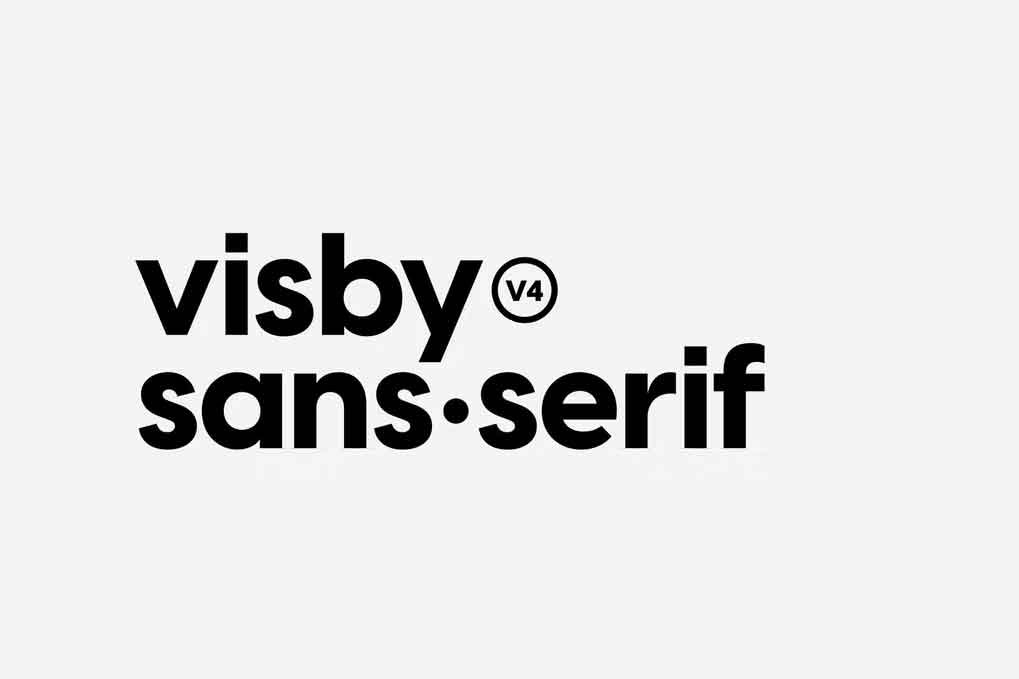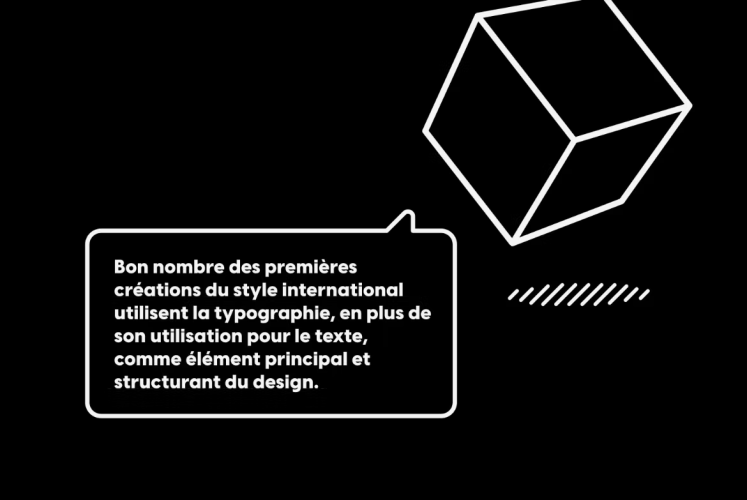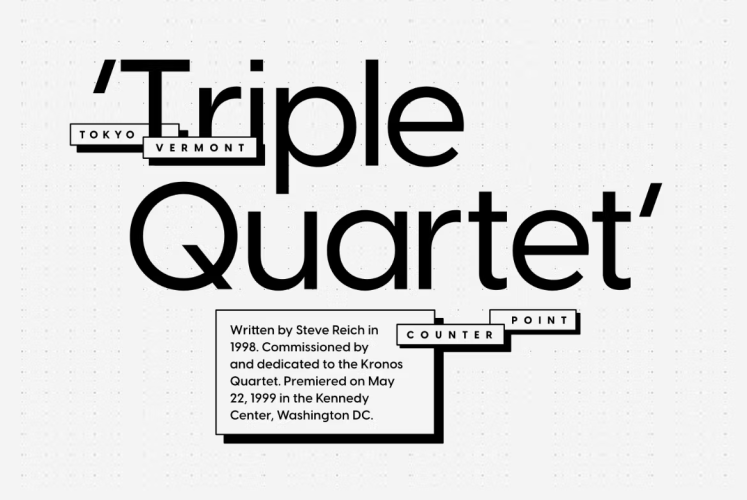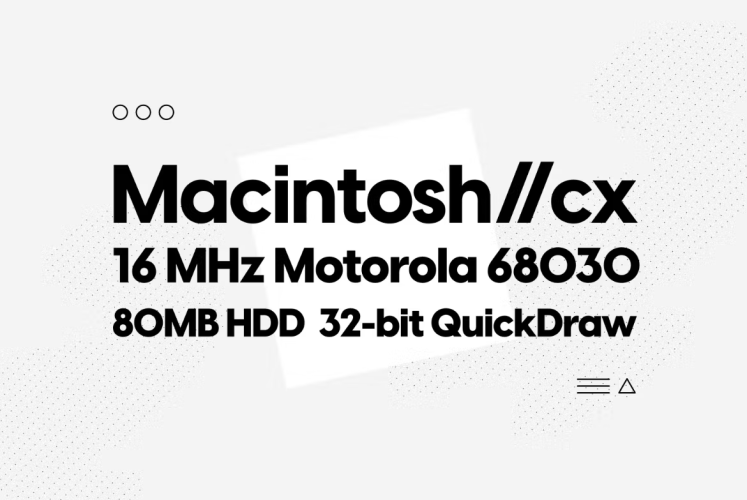
Visby CF Font
Visby is a geometric typeface inspired by the stark beauty and crisp air of the Arctic. Friendly and charismatic in lowercase; sophisticated and authoritative in uppercase. Hard lines and sharp corners mesh with smooth, rounded letterforms, while humanist nuances add a little warmth.
Visby CF Font is a Sans Serif Fonts font that brings a professional and versatile look to your projects. Visby is a geometric typeface inspired by the stark beauty and crisp air of the Arctic.